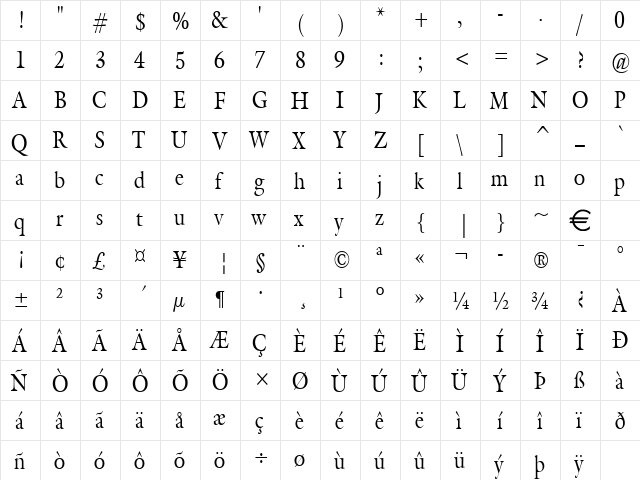
GalantCondensed Normal
Design Context for GalantCondensed Typeface
GalantCondensed takes a measured approach to typography — its balanced proportions and neutral character make it a reliable workhorse for both digital and print work. The condensed width makes it efficient for tight spaces without sacrificing legibility.